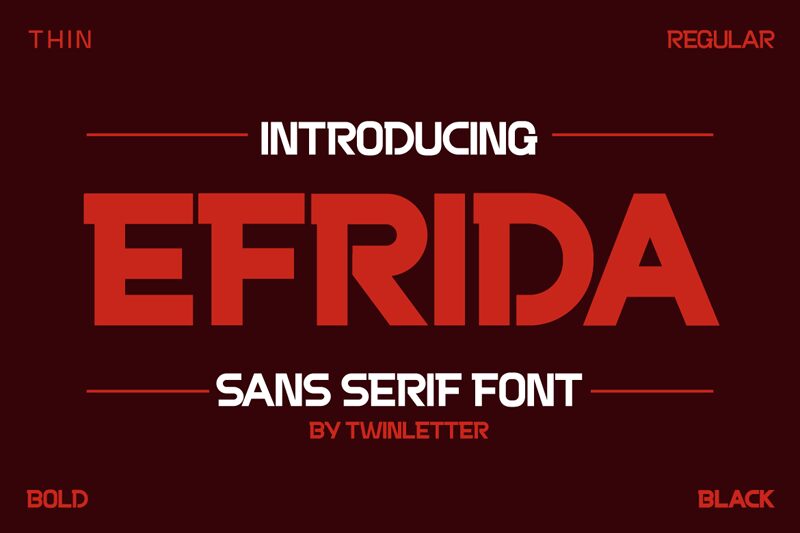
Meet EFRIDA, the contemporary sans serif font designed by Murozakul Akhsan. With its clean lines and modern appeal, EFRIDA is a versatile typeface that can be used for a wide range of projects. Its refined simplicity makes it perfect for creating sleek and professional designs for corporate branding, while its friendly curves lend themselves to more playful applications like invitations or social media graphics. Whether you're designing a website, crafting a logo or laying out a magazine spread, EFRIDA's crisp, legible letterforms are sure to make an impact. Try it out today and see how it can elevate your next project!